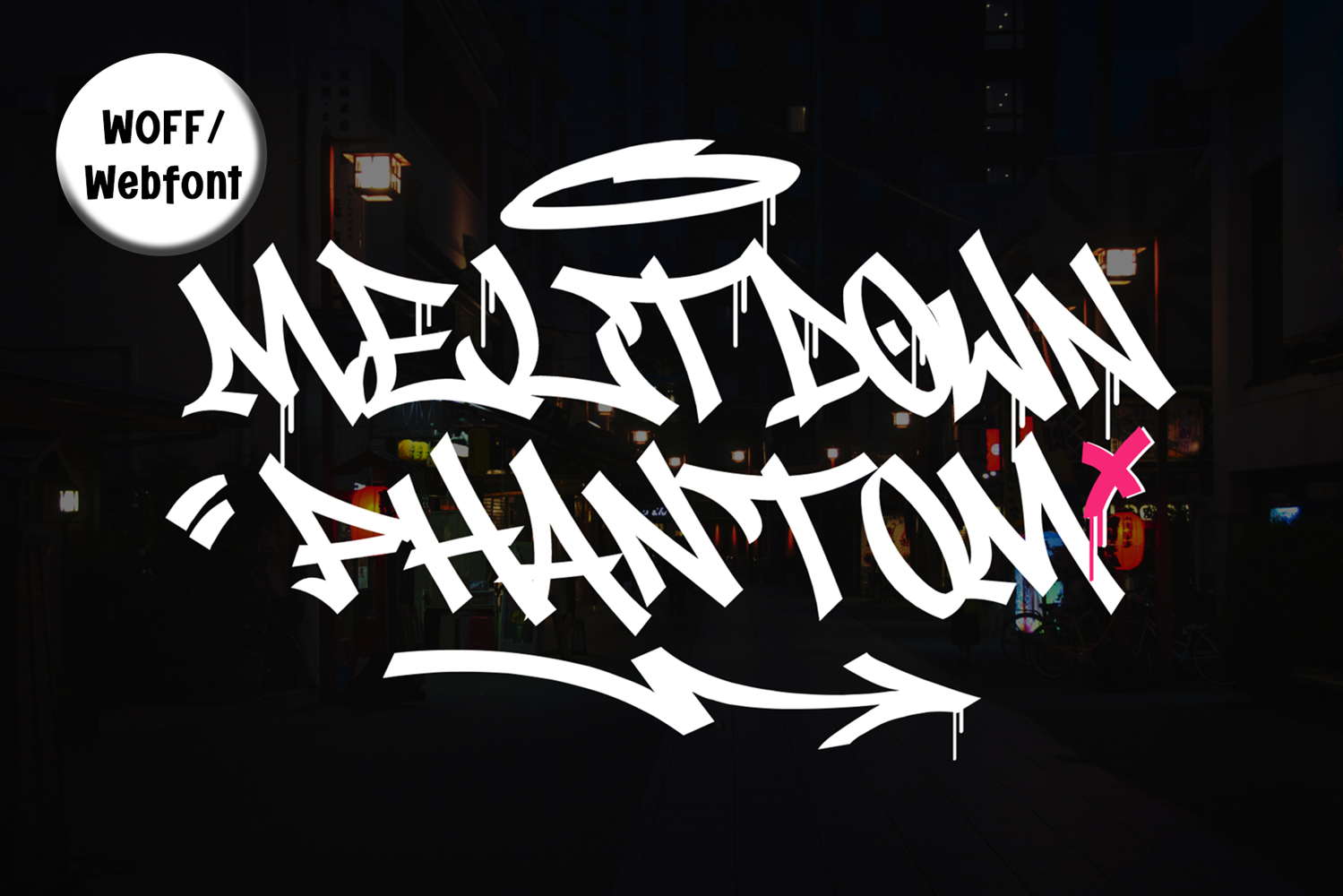
Meltdown Phantom | Urban Drip Graffiti Font | Webfont
Meltdown Phantom is a graffiti-inspired monoline script font that brings raw street energy to your web projects. Featuring two styles—Dripping and Clean—it mimics natural handstyle lettering with bold swashes, wild movement, and unique personality. Perfect for music artists, streetwear branding, skate communities, or any web-based project needing urban edge and authenticity.